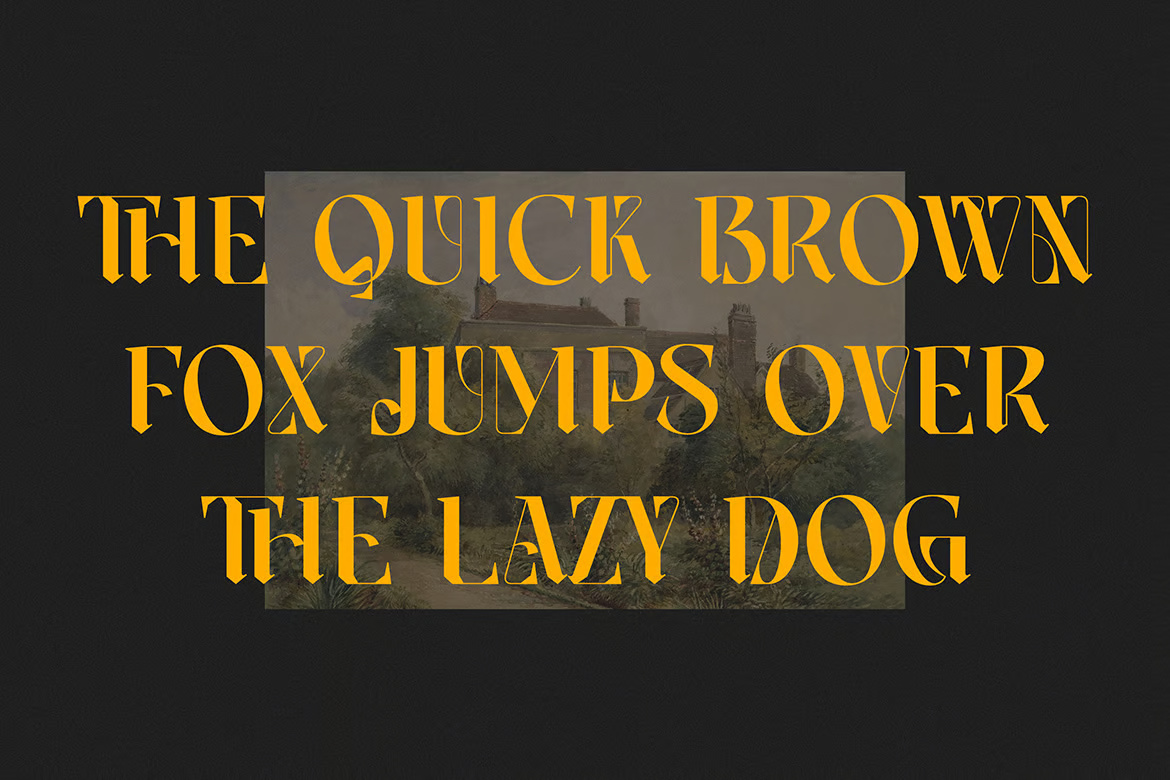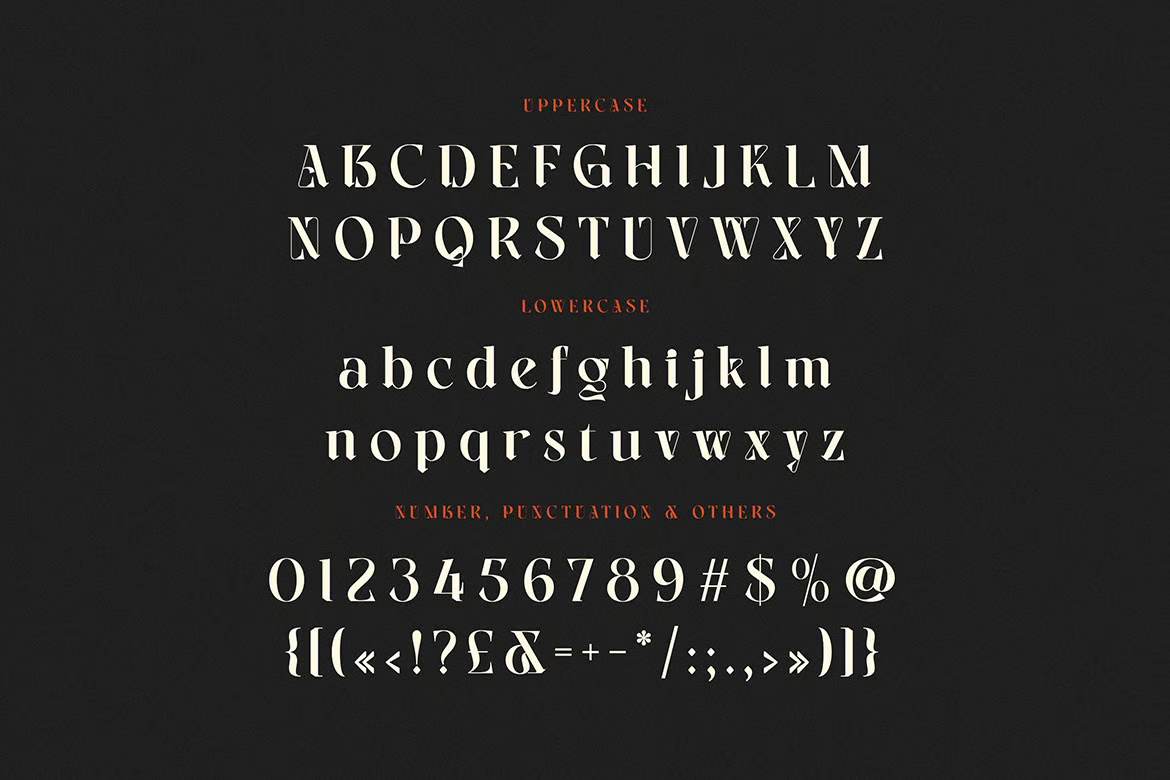
Mergasten Blackletter Serif
Mergasten Blackletter Serif is a bold and intricate typeface that combines the elegance of traditional blackletter styles with the refined structure of a serif font. It features sharp, dramatic strokes, ornate flourishes, and a gothic-inspired aesthetic, making it perfect for vintage designs, branding, logos, posters, and other artistic projects requiring a strong and classic feel.